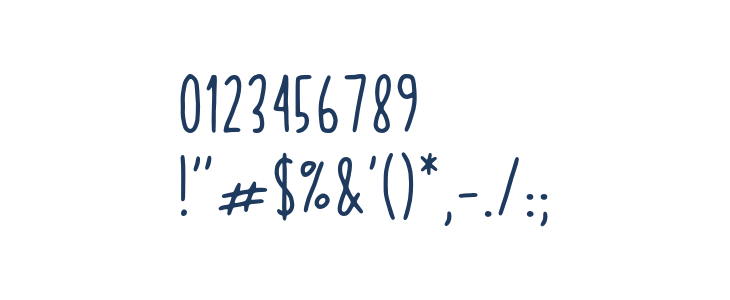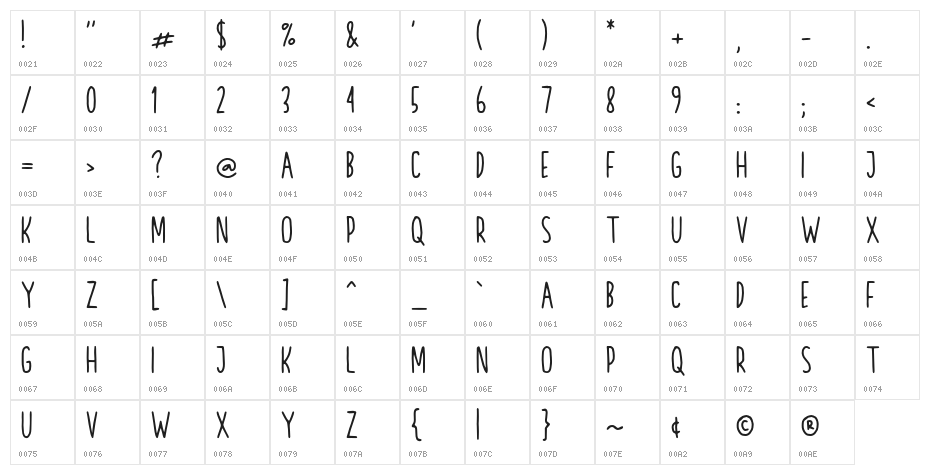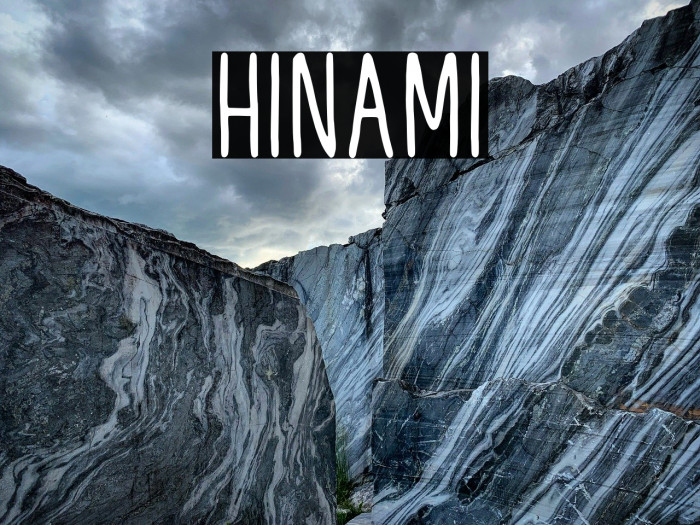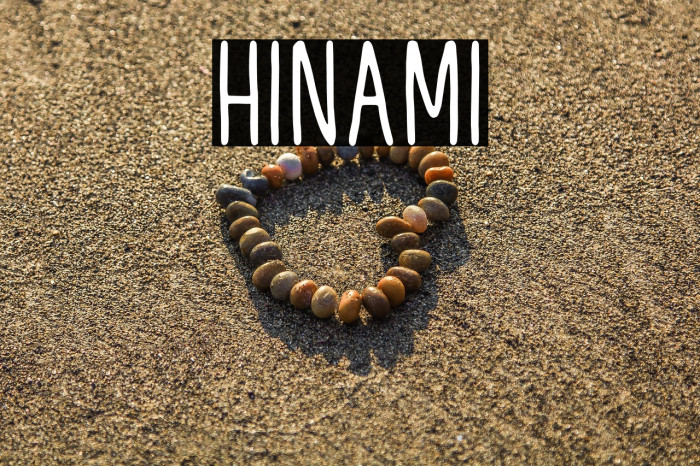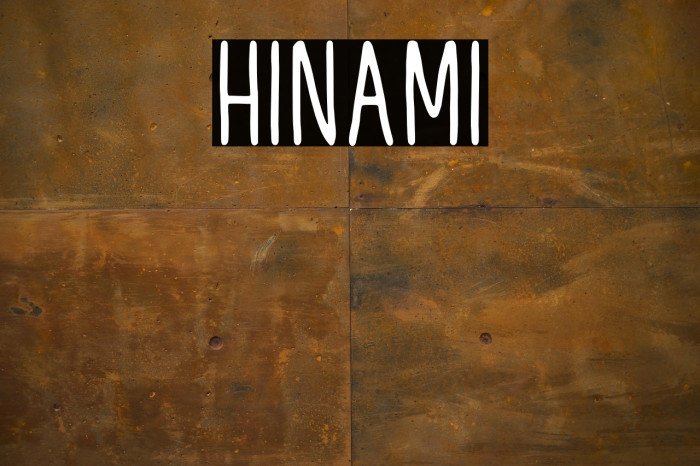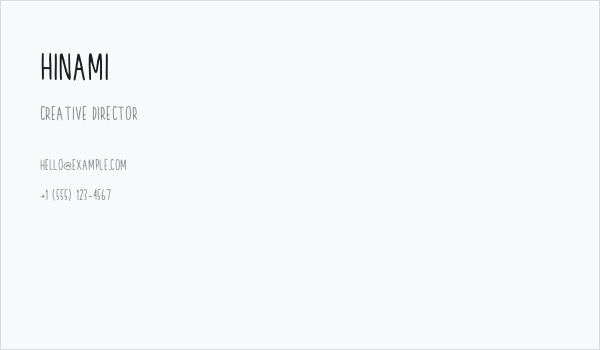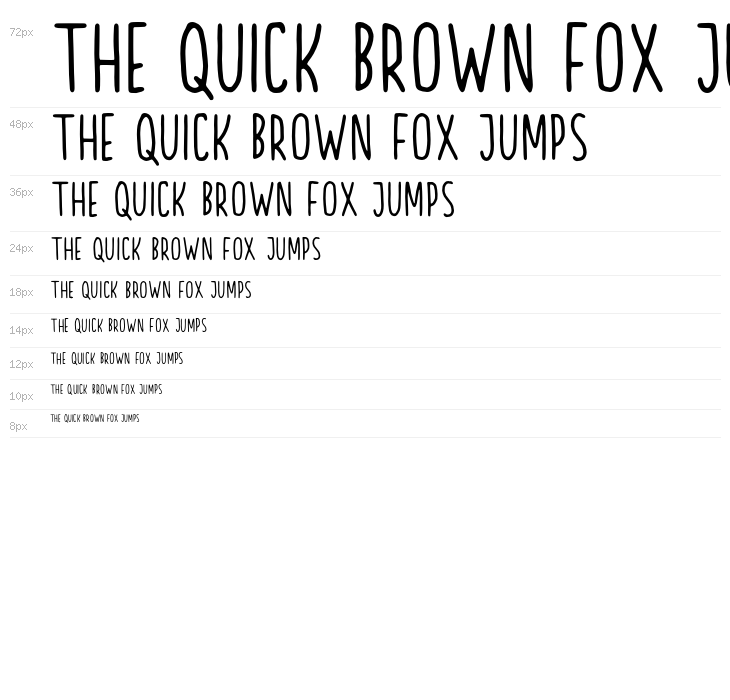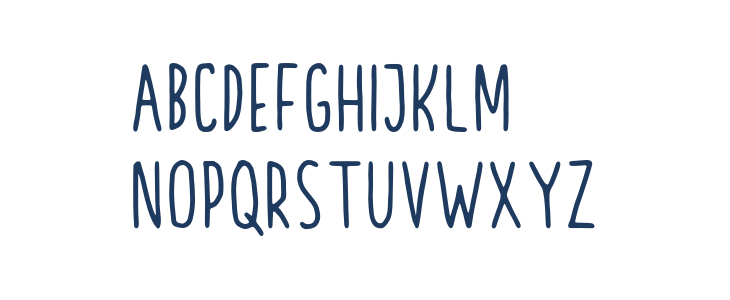
Hinami Font
Hinami Description
This font features a playful and casual handwritten style, characterized by its tall and slightly narrow letterforms. The strokes are consistent in width, giving it a uniform appearance, while the rounded edges add a friendly and approachable feel. The uppercase and lowercase letters maintain a cohesive look, with a slight slant that adds dynamism. The numerals are clear and legible, matching the overall style of the alphabet. Special characters are included, maintaining the same playful aesthetic. This font is ideal for projects that require a personal touch, such as greeting cards, invitations, or informal branding.
Overall StyleCasual, Playful
Use CaseHeadlines, Logos, Informal Text
Proposed ProjectsGreeting cards, invitations, informal branding, children's books, and social media graphics.